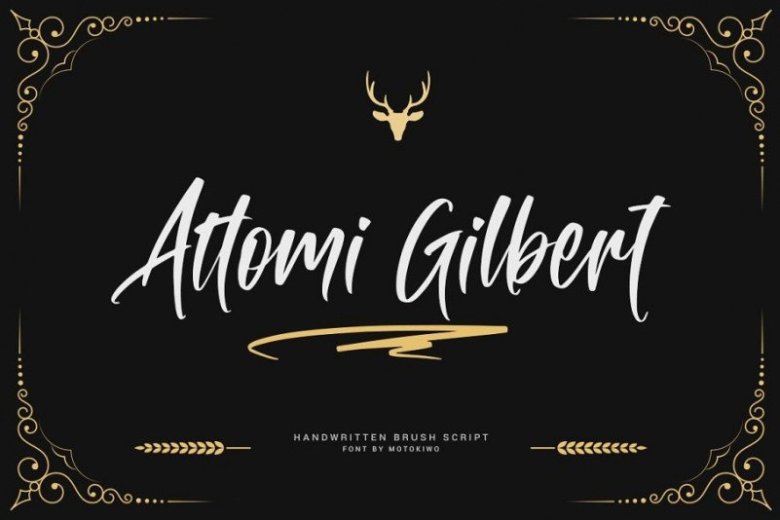
Attomi Gilbert Script Font
This is a casual country feeling font! Use this fun alphabet with your next farmhouse project! Introducing Attomi Gilbert Font. It’s designed and shared by Motokiwo.
Organic handwriting gesture from a cool brush that useful for multipurpose projects, an elegant script font with passionate handmade feels in each characters. You can use it for vintage or urban projects style. A stylish dispaly font with various interesting features. This font is perfect for for branding, poster, and many more.